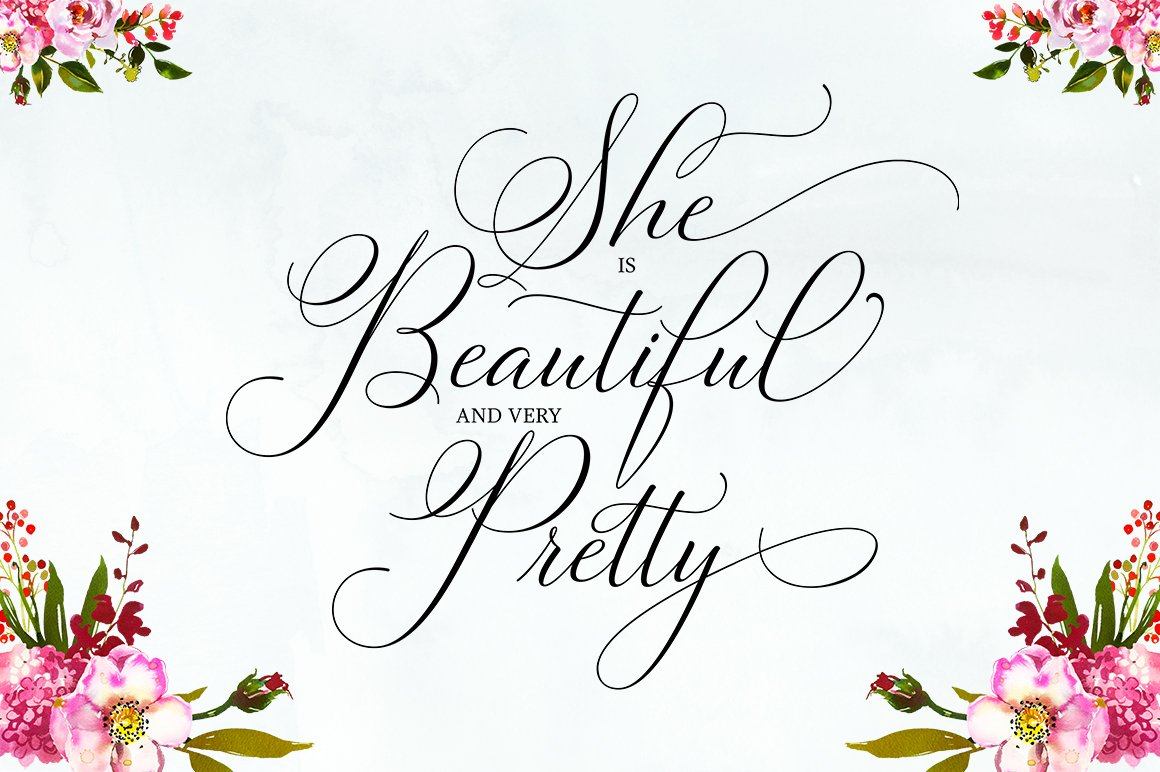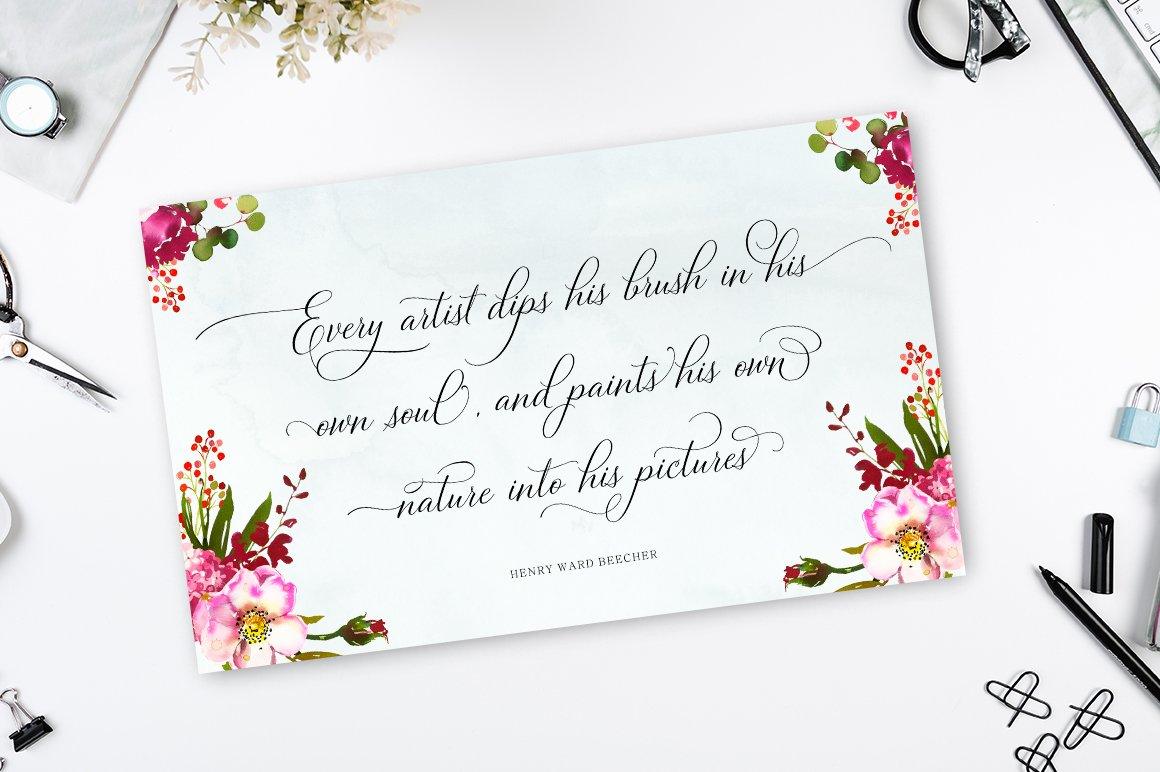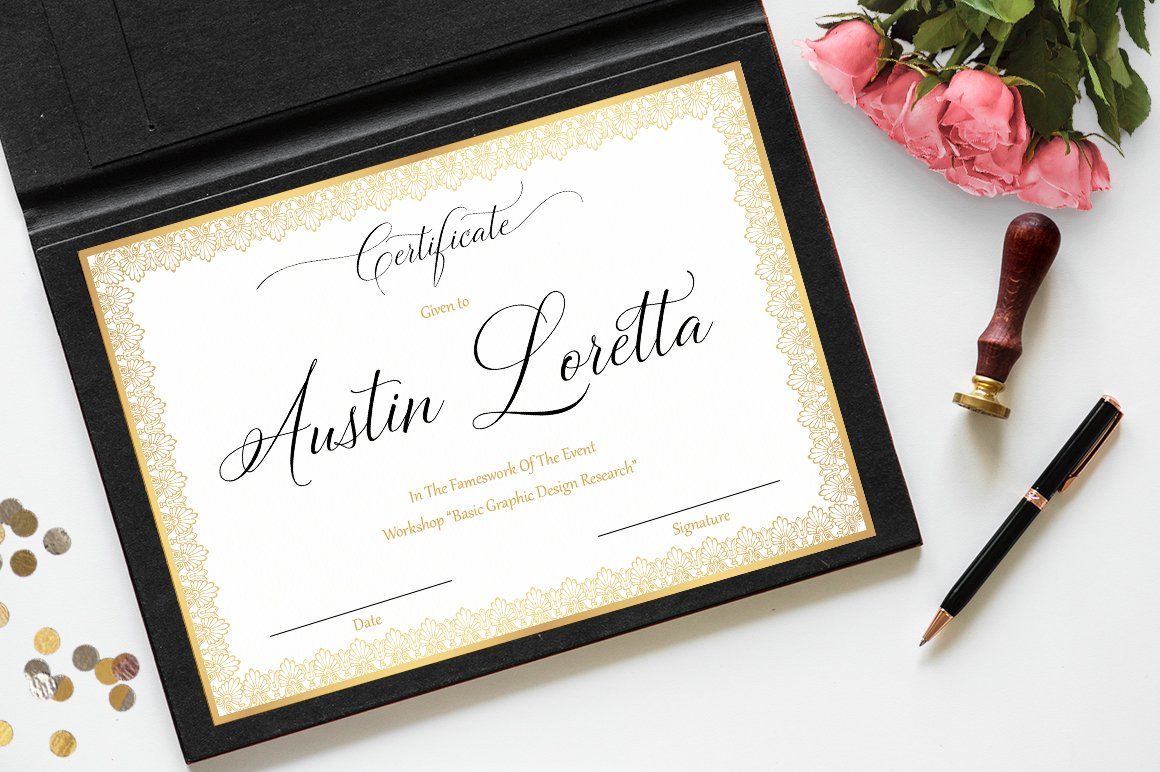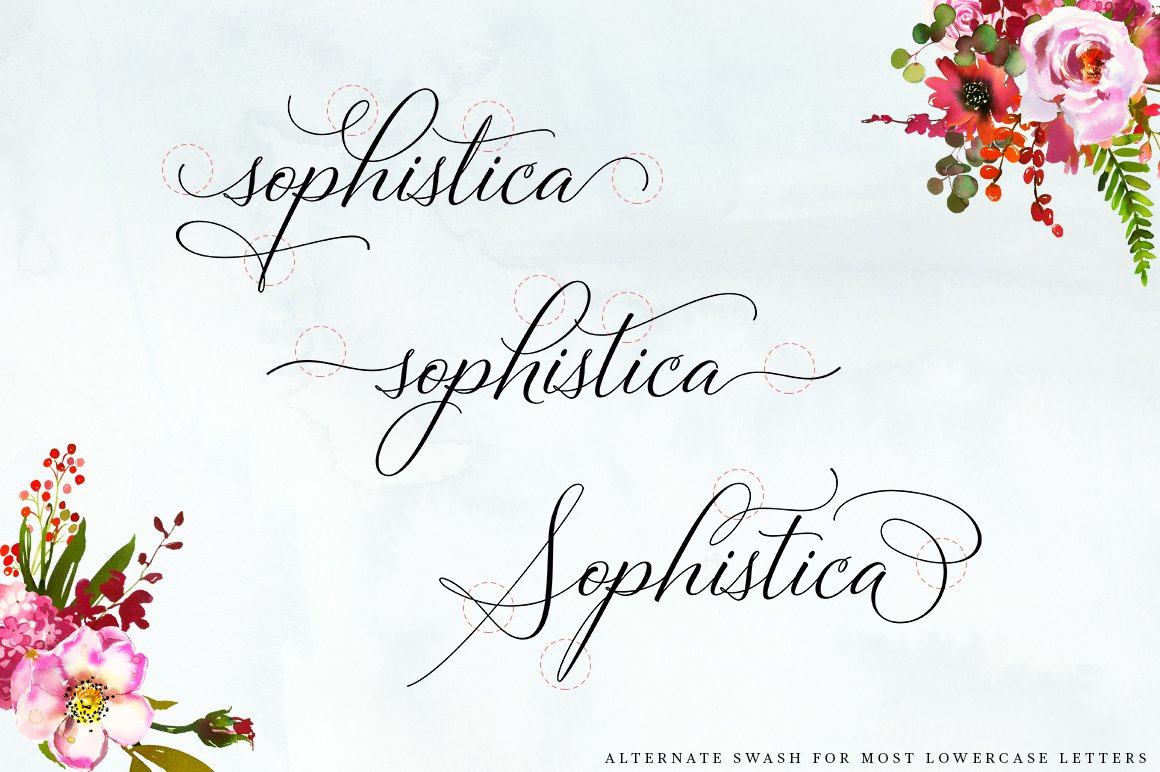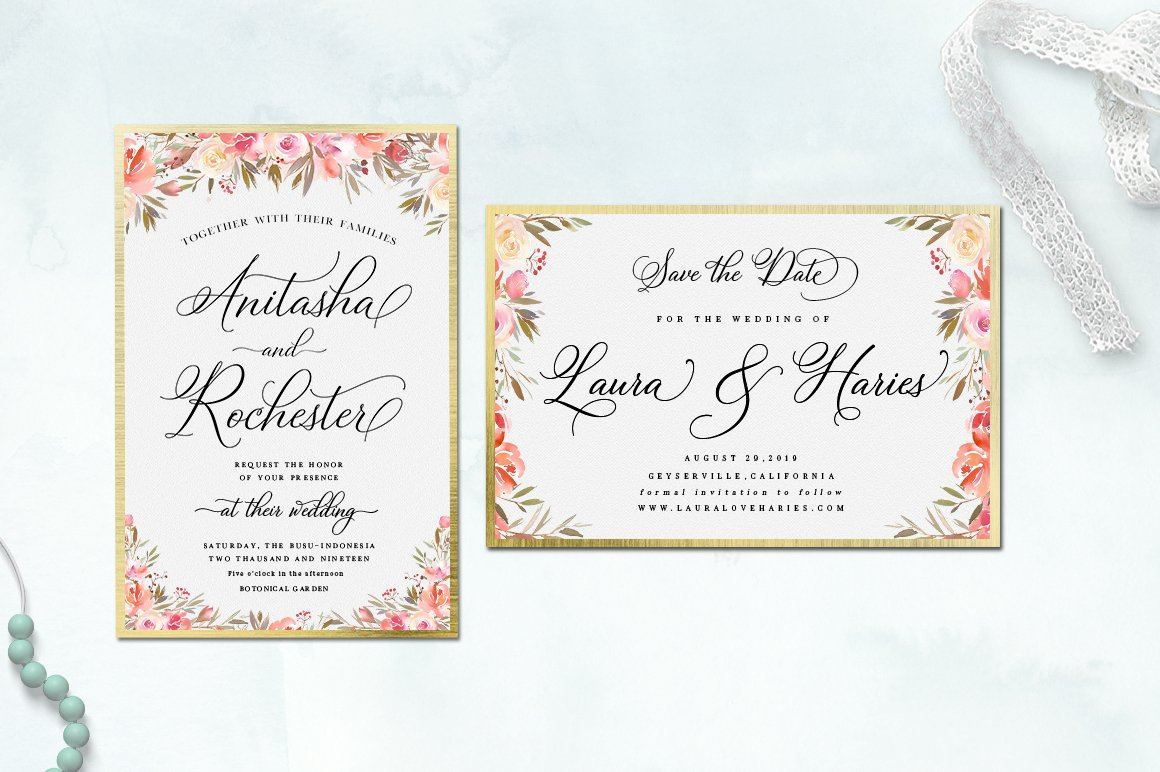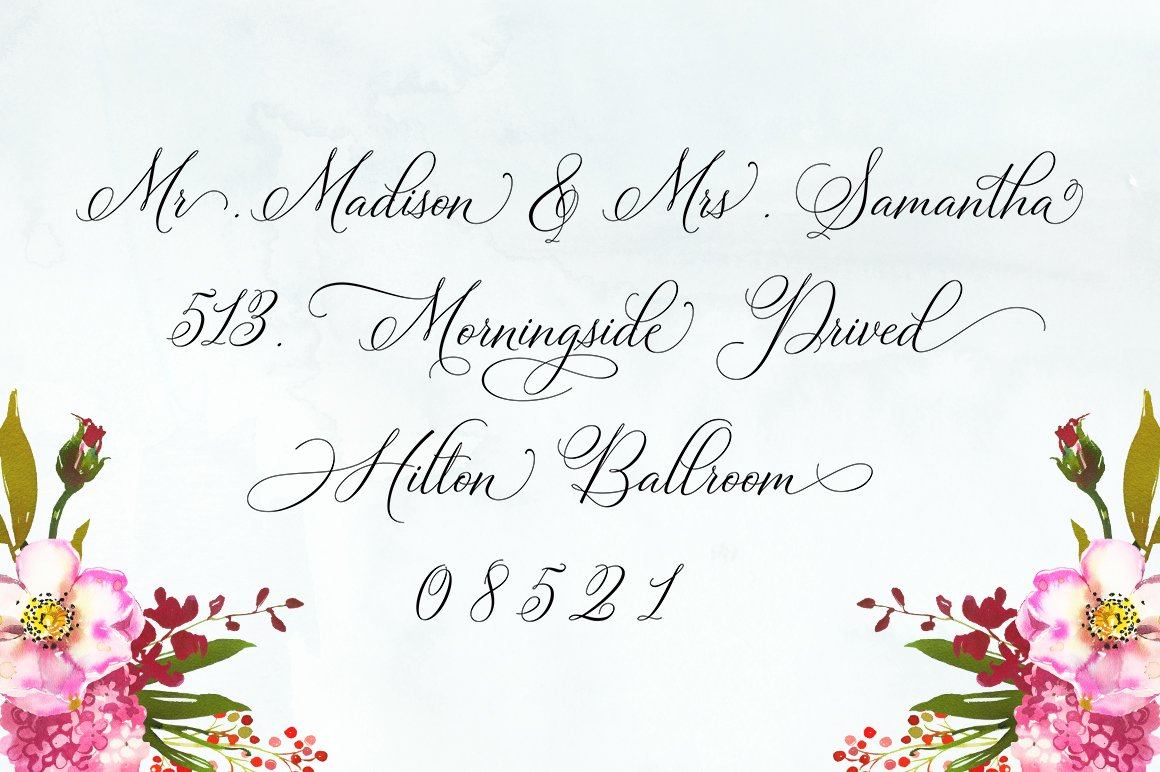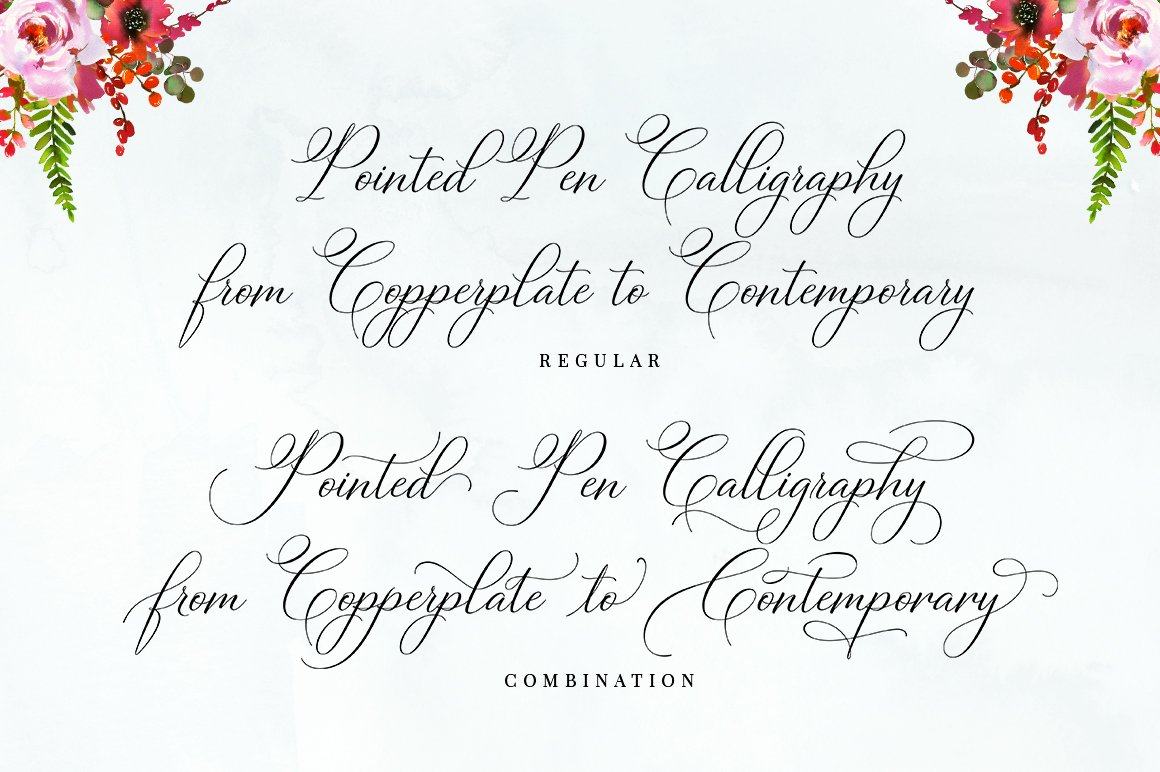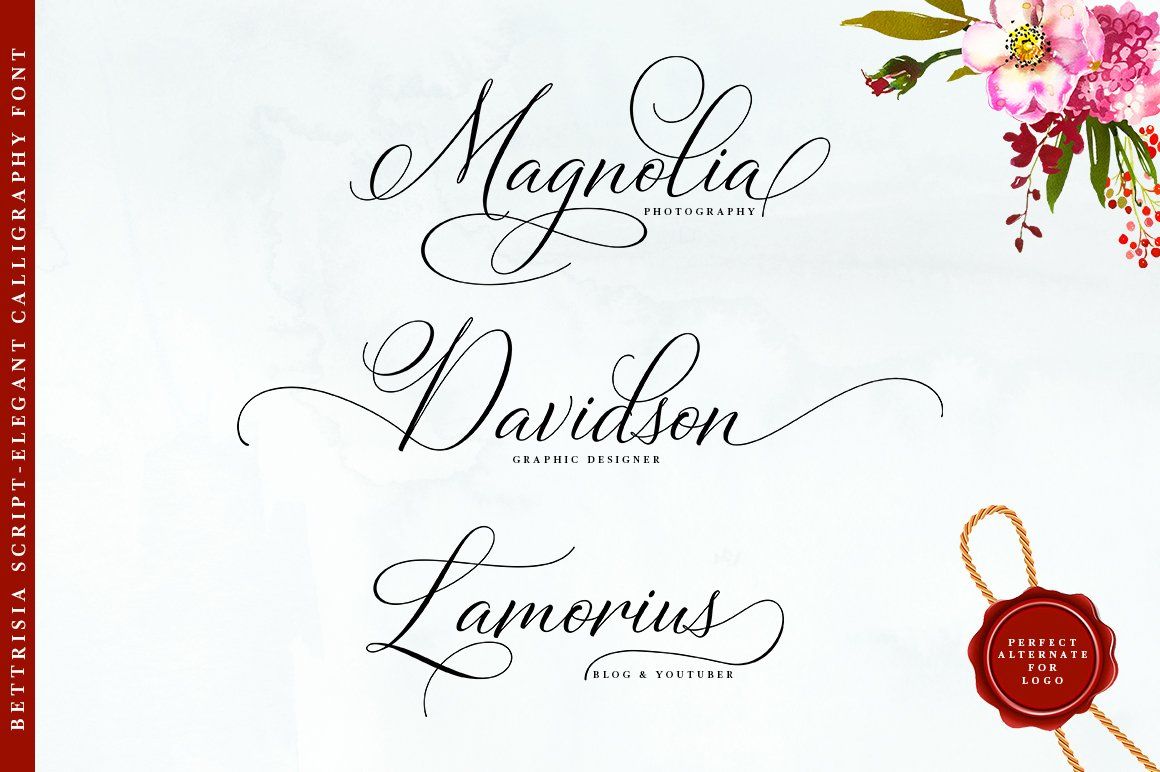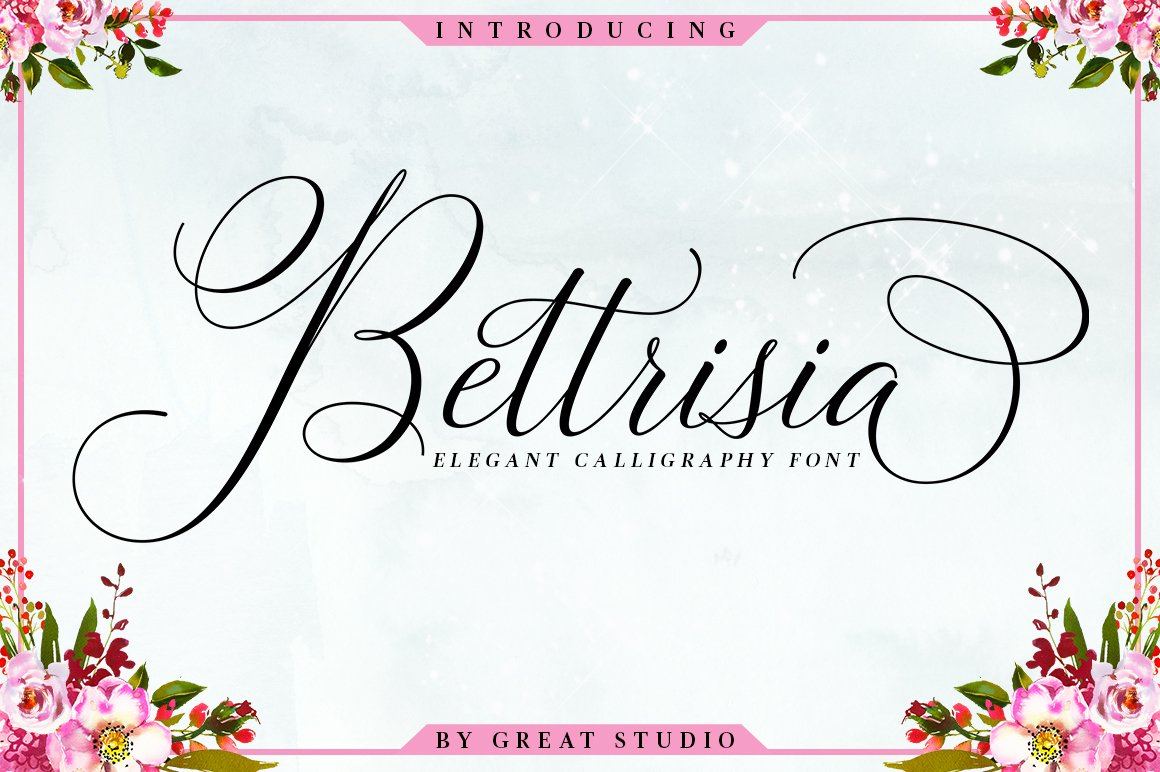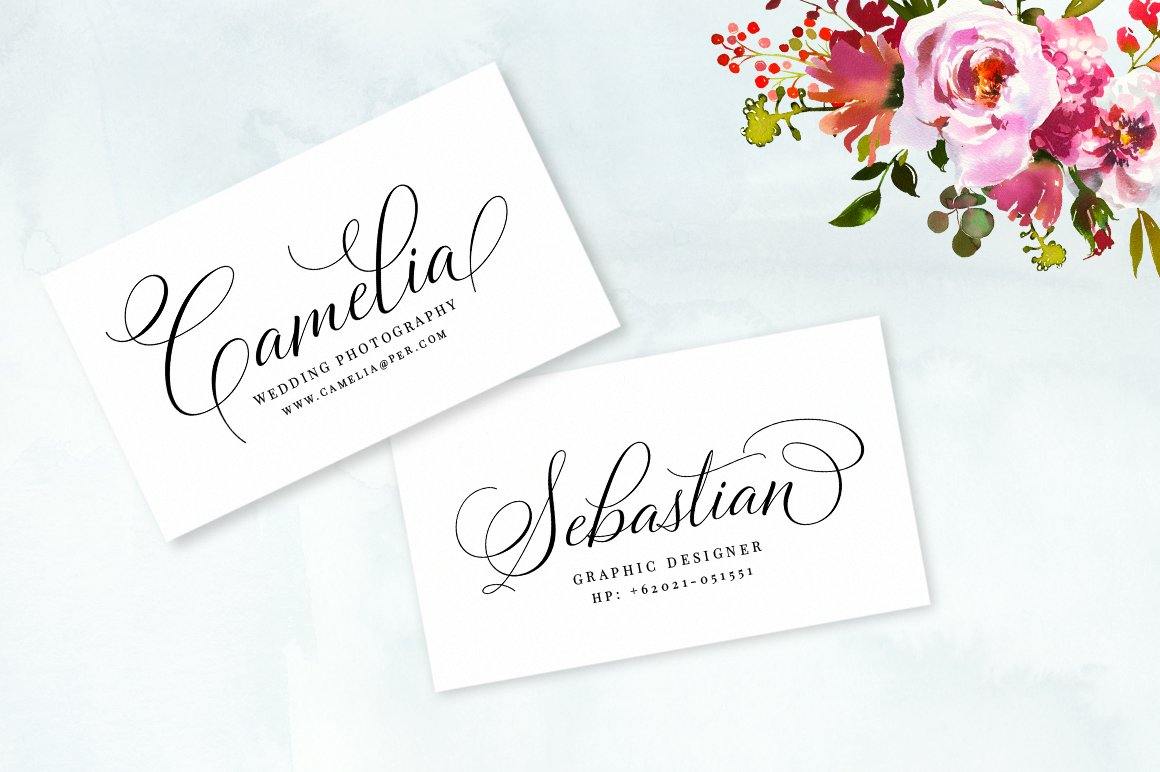
Bettrisia Script
About Bettrisia Script
Bettrisia Script is a modern and elegant calligraphy script font that comes with very beautiful character changes, a kind of classic decorative copper script with a modern touch, designed with high detail to bring stylish elegance. Bettrisia Script Interesting scripts as smooth, clean, feminine, sensual, glamorous, simple and very easy to read, because there are many fancy and simple letter connections. I also offer a number of alternative styles that are appropriate for many letters. This font style is perfect for various designs of your work, such as invitations, labels, restaurant menus, logos, fashion, makeup, stationery, novels, magazines, books, greeting cards / wedding, packaging, labels and others. Bettrisia Script has 680+ glyphs and 487 alternative characters , including various language support. With the OpenType feature with alternative styles and elegant ties. The OpenType feature does not function automatically, but you can access it manually and for the best results needed for your creativity in combining this Glyph variation.The Open Type feature can be accessed using Open Type savvy programs such as Adobe Illustrator, Adobe In Design, Adobe Photoshop versions of Corel Draw X, and Microsoft Word. And this font has given PUA unicode (special code font). So that all alternative characters can be easily accessed in full by craftsmen or designers. Files included: Bettrisia Script Regular (otf, ttf) Bettrisia Script Alternates (otf, ttf) Bettrisia Script Bold (otf, ttf) Thank you for your purchase!